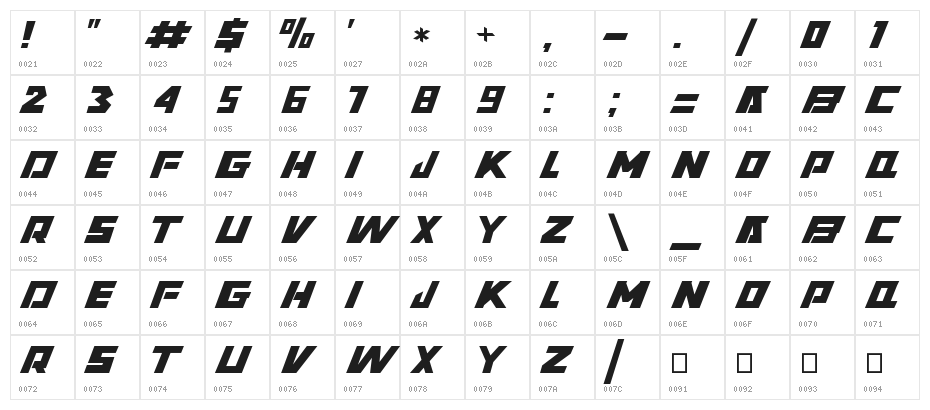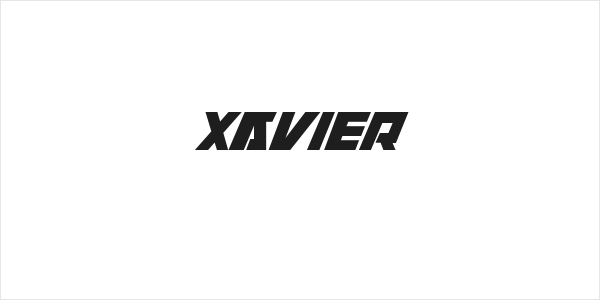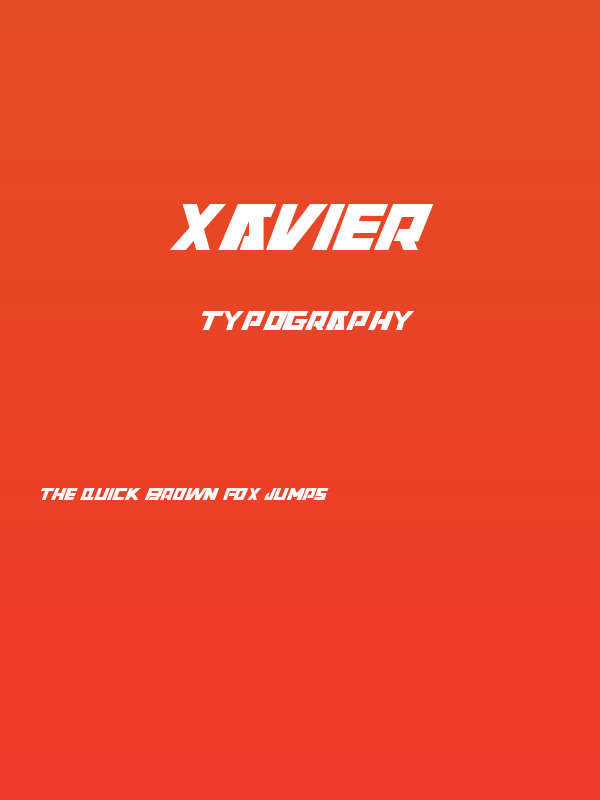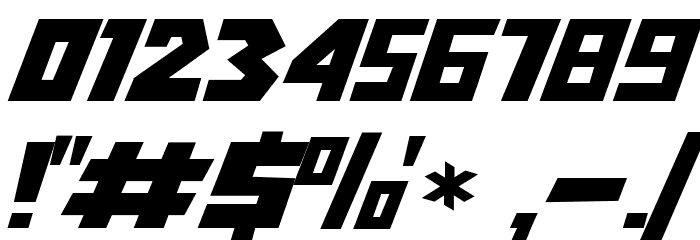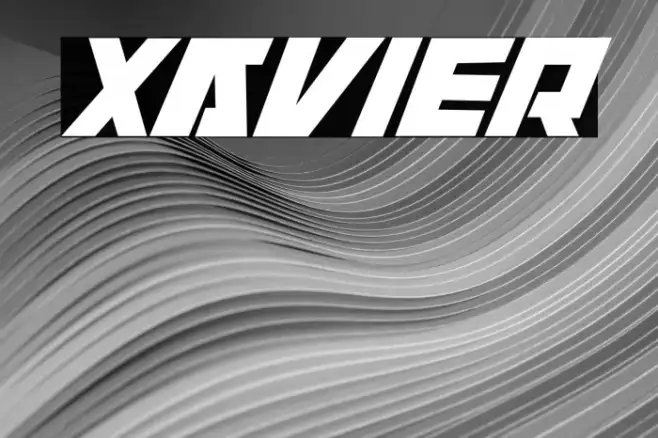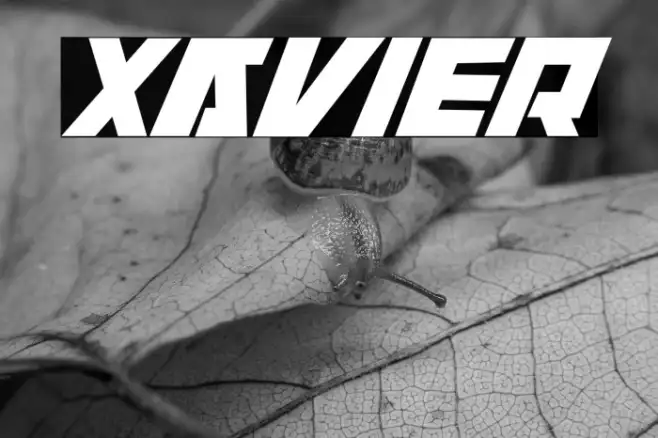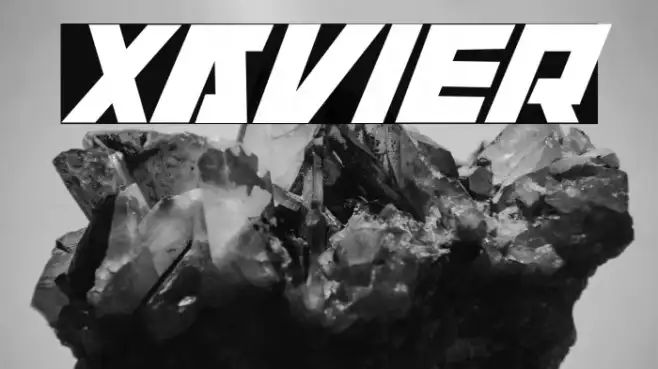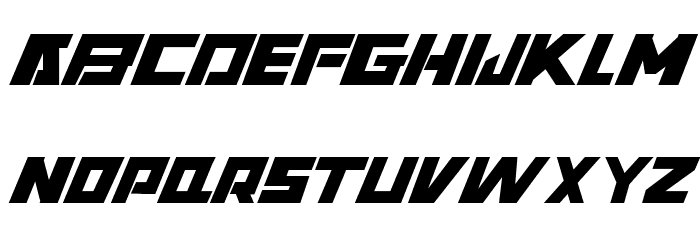
Xavier Font
Xavier Description
This font features a bold and dynamic style with a strong geometric influence. The characters are sharply angled, giving a sense of motion and energy. The uppercase letters are particularly striking, with a futuristic and sporty aesthetic. The lowercase letters maintain the same angular design, ensuring consistency throughout the typeface. Numbers and special characters are equally bold, making them stand out effectively. This font is ideal for projects that require a modern and impactful look, such as sports branding, technology-related designs, or any application where a sense of speed and innovation is desired.
| Use Case | Logos, Headlines, Posters |
| Proposed Projects | Ideal for sports branding, tech designs, and dynamic advertising. |